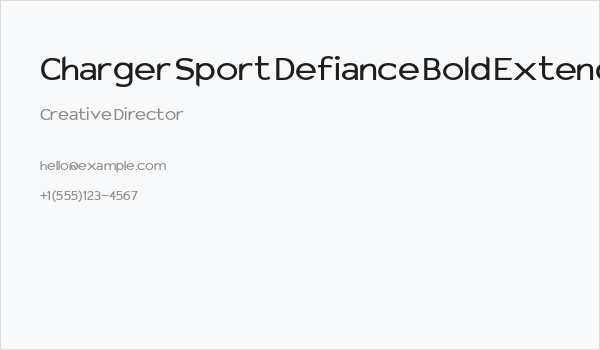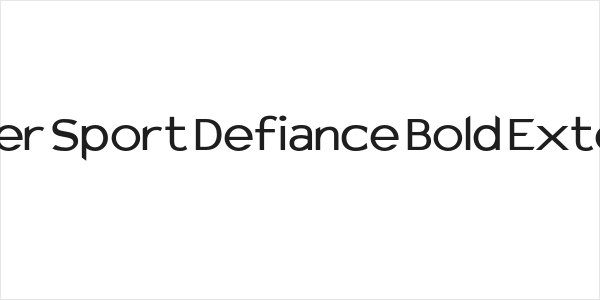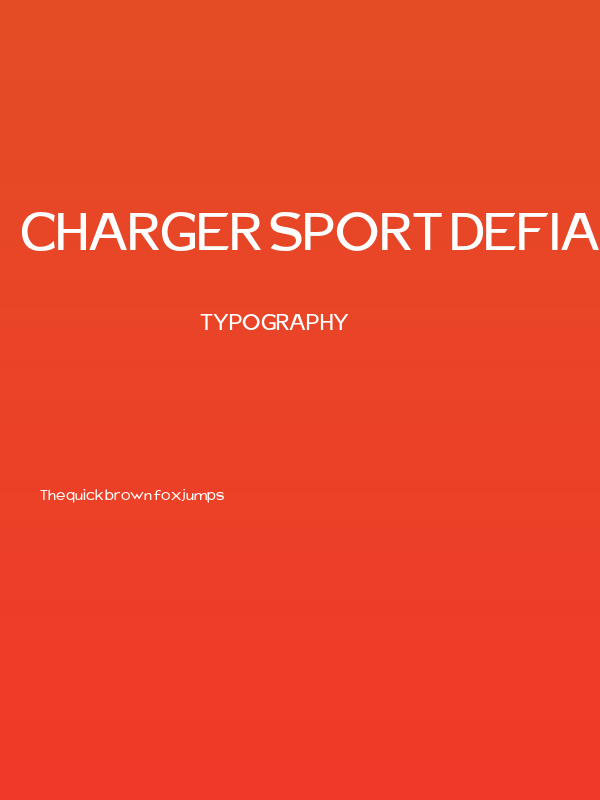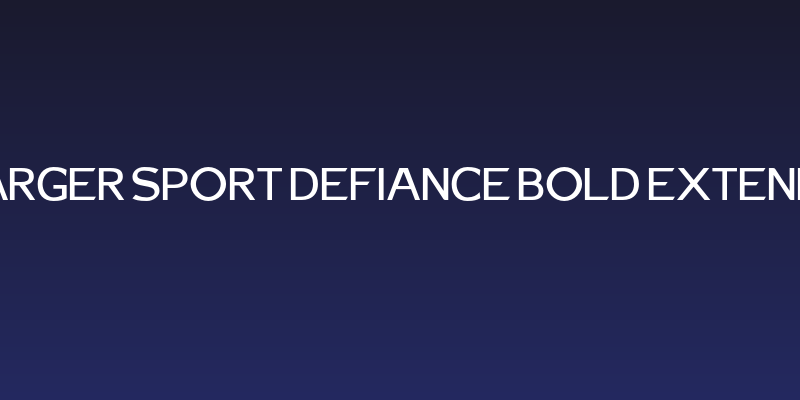
Charger Sport Defiance Bold Extended Font
Charger Sport Defiance Bold Extended Description
This typeface features a bold and extended design, characterized by its clean and modern sans-serif style. The letters are evenly spaced with a slight expansion, giving it a strong and assertive appearance. The uppercase and lowercase letters are well-proportioned, maintaining a consistent weight throughout. The numerals are clear and easy to read, complementing the overall design. Special characters are included, enhancing its versatility for various applications. The font's boldness and extended width make it ideal for impactful headlines and branding projects.
| Proposed Projects | Ideal for branding, advertising, headlines, and sports-related designs. |